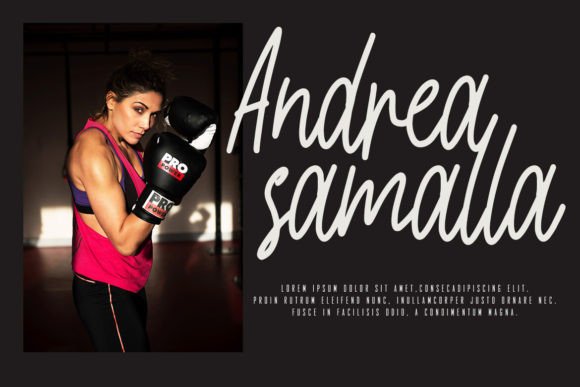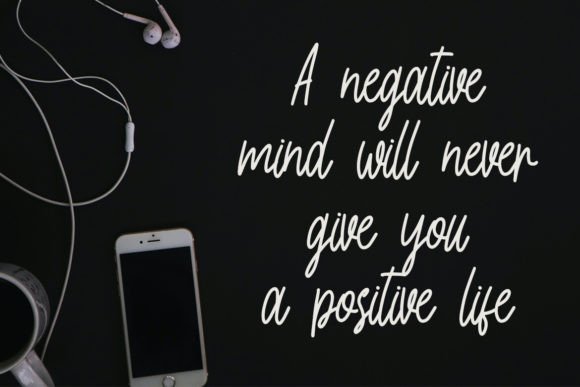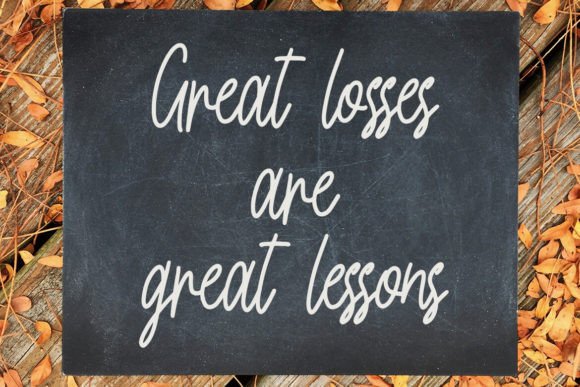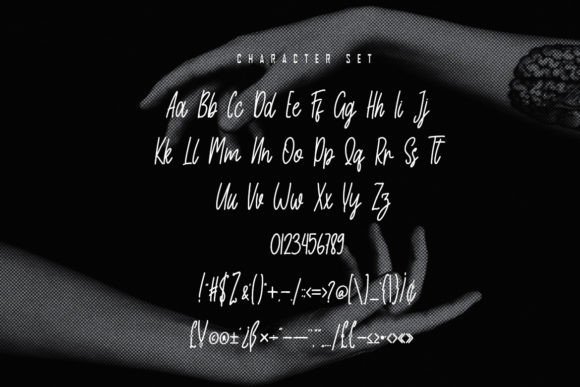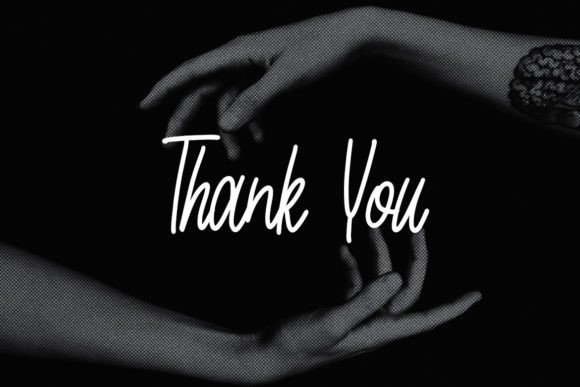
Introduction to Selastyne Font
Remember that moment when you’re brainstorming ideas for your creative project, and the perfect font just slips your mind? You’re about to elevate your designs with the ultimate game-changer: the Selastyne Font. This stunning Monoline script font is the perfect addition to your design arsenal, guaranteed to add a touch of sophistication and style to your headlines and logotype projects.
With its strong, confident, and dynamic feel, the Selastyne Font is a must-have for any designer looking to add an urban twist to their designs. Whether you’re working on a high-quality logo or a free download template, this versatile font is sure to make your design stand out. Its transparent background and high-quality design make it a valuable resource for any creative project, from print to digital media.
- Includes a range of stylish and elegant characters, making it ideal for use in branding, logos, and typography-based designs.
- Features a large character set, including uppercase and lowercase letters, numbers, and punctuation marks, to cater to diverse design needs.
Honest Review: Selastyne Font
I recently had the chance to work with the Selastyne Font, and I must say it’s been a great addition to my design resource library. The font is perfect for any creative project that requires a unique and elegant touch.
- ✨ High-quality design: The font is crisp, clear, and has a beautiful aesthetic that makes it stand out from the crowd.
- ⚠️ Limited character set: The font’s character set is a bit limited, which may not be ideal for projects that require a wide range of characters.
- ⚠️ Not suitable for small text: Due to its elegant design, the font may not be the best choice for small text or headings.
Overall, I’m impressed with the Selastyne Font and would definitely recommend it to designers looking for a high-quality, unique font for their creative projects. Its free download and transparent background make it a valuable design resource that’s hard to pass up.
Selastyne Font is a high-quality design resource ideal for creative projects that require a touch of elegance and sophistication. With a transparent background, this font is perfect for creating visually appealing graphics and designs.
Selastyne Font is ideal for creating wedding invitations, business cards, and other formal documents. It’s also perfect for creating social media graphics, blog posts, and other online content.